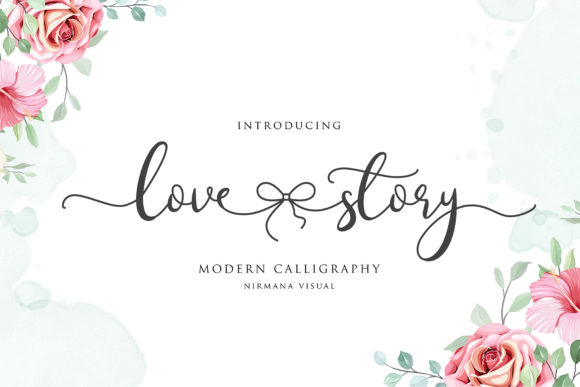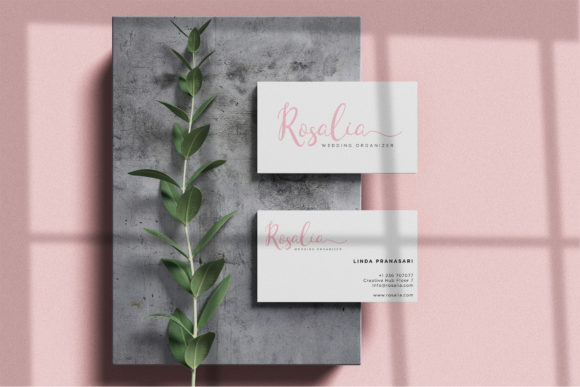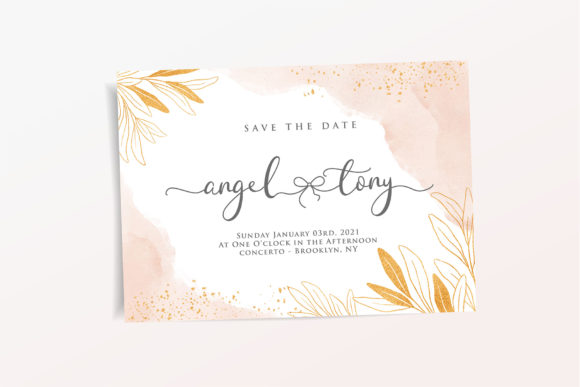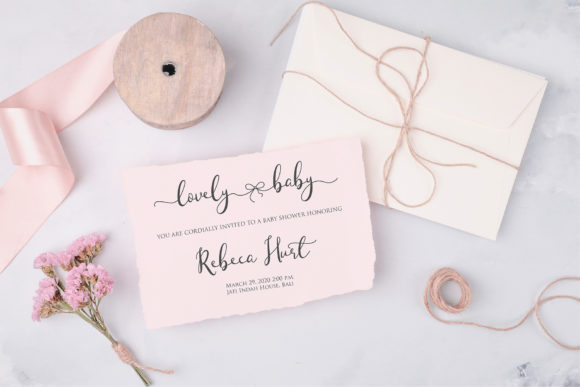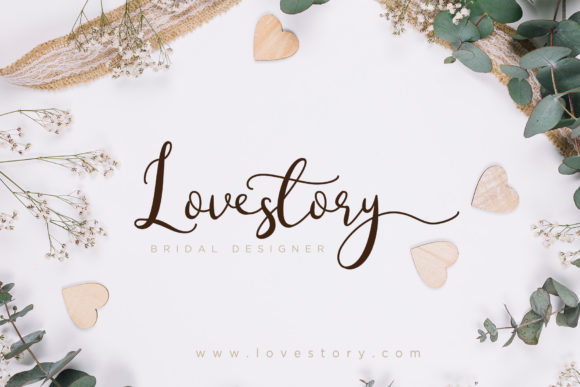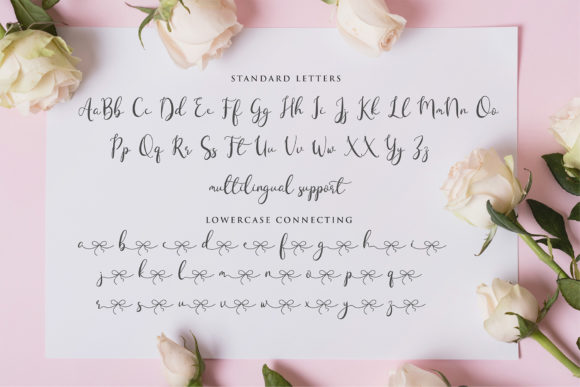
Lovestory Font
Lovestory is a gorgeous way to celebrate all things love. This gorgeous and romantic script is full of love and will elevate any craft design to the highest level!